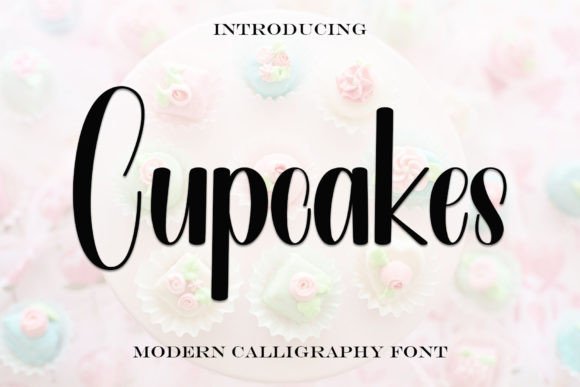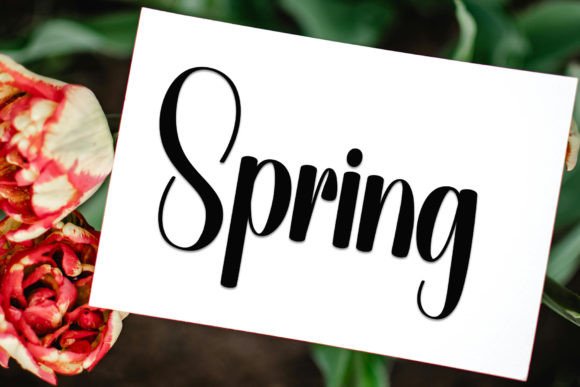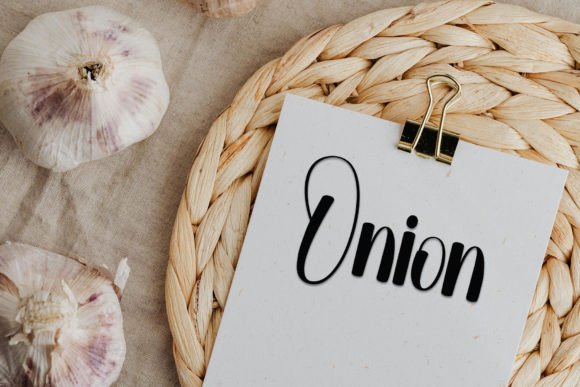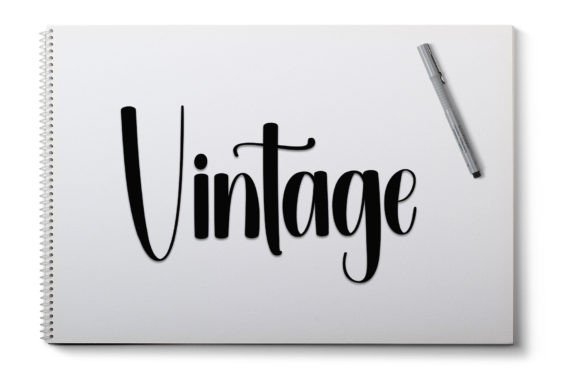
Cupcakes Font
About the Cupcakes Font
The Cupcakes Font is here to transform your projects with its distinctive character and style. Cupcakes is a sweet and cursive handwritten font. This gentle font will look gorgeous on a variety of design ideas. It will add a joyful and romantic touch to each of your projects! Perfectly fit for branding, logo, wedding things, greeting cards, fashion, lookbook, marketing promotion, and anytime you want your design to look fancy and elegant but still casual.
Cupcakes excels in applications requiring a delicate, handwritten feel, such as logos for boutiques, wedding invitations, or short-form social media content. Its charm works best in headlines, short quotes, and packaging where legibility isn’t paramount over aesthetic impact. Avoid using it for body text or UI elements; its cursive nature compromises readability in extended passages.
Pair Cupcakes with a clean sans-serif like Montserrat for a modern contrast, or a classic serif such as Garamond for a more traditional feel. A geometric sans-serif, such as Futura, can add a touch of sophistication, balancing Cupcakes’ playful energy.
The font’s overall personality is best described as charming and romantic, conveying a sense of gentle femininity and whimsical elegance. It’s ideal for brands targeting a youthful, sophisticated, and potentially female-oriented demographic.
Cupcakes Font Usage Examples
Cupcakes Font Example